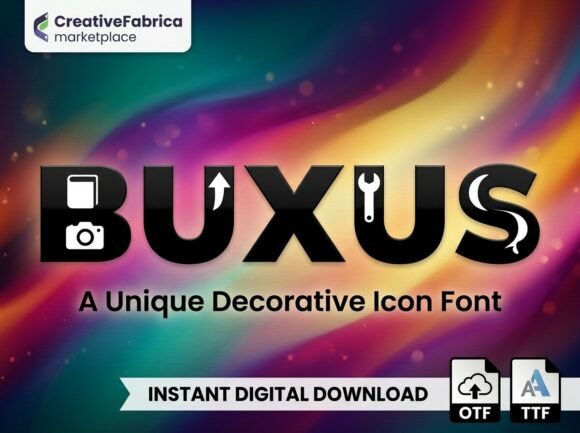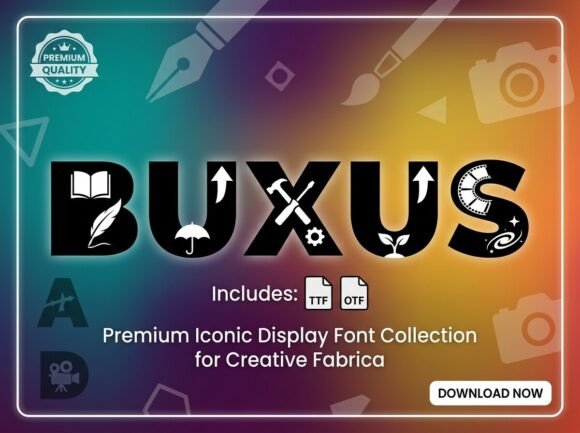
Introduction to Buxus Font
Tell a visual story with Buxus, an illustrative display typeface that captures a “multi-faceted-and-inventive” soul.
This font features massive, solid letterforms uniquely integrated with a rhythmic variety of white icons—from open books and soaring birds to gears and film strips—representing a diverse world of creativity With its heavy graphic weight and versatile personality, Buxus is the premier choice for independent creative agency branding, educational workshop logos, multi-media project titles, and high-impact “visionary-and-vibrant” social media headers.
Why Choose Buxus Font?